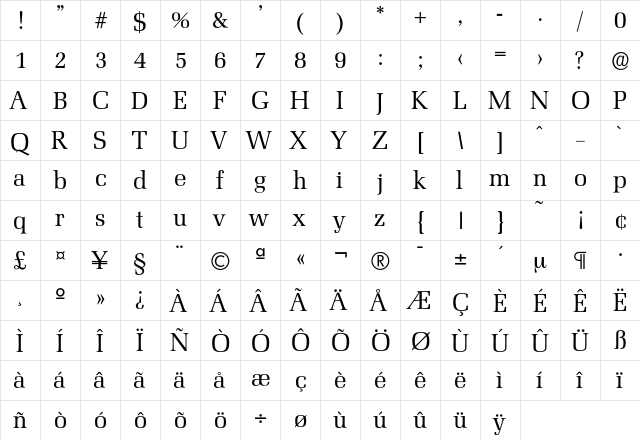
Marseille-Regular Regular
Design Context for Marseille-Regular Typeface
Marseille-Regular is a composed and adaptable typeface that performs quietly and consistently across a wide range of design contexts.
Pro Tip: Use Marseille-Regular in both headline and body roles to test its range before committing to a single application.